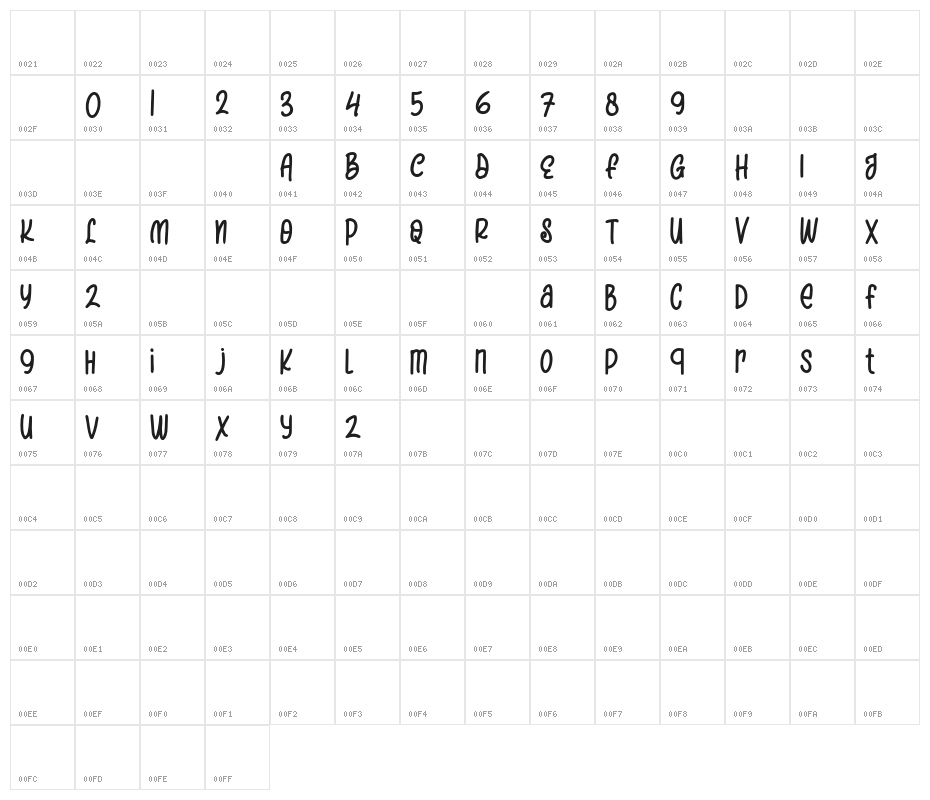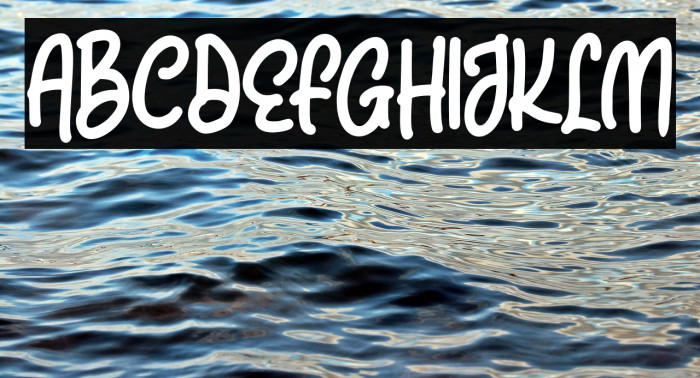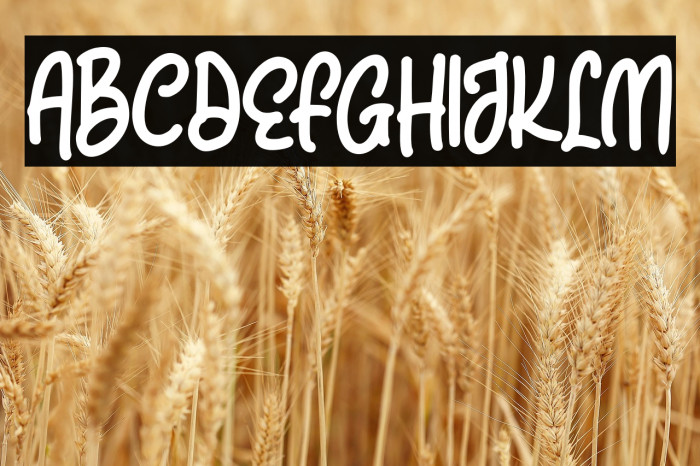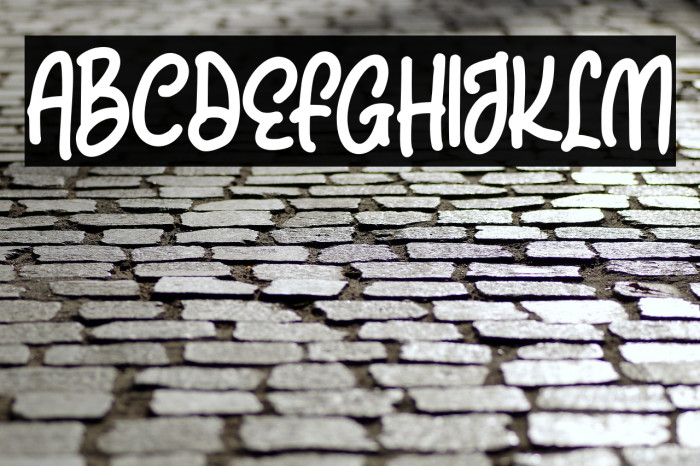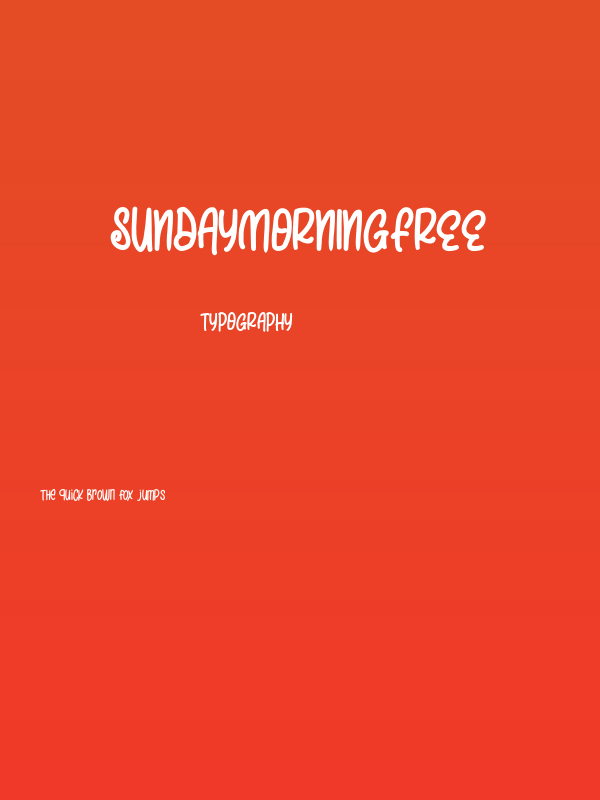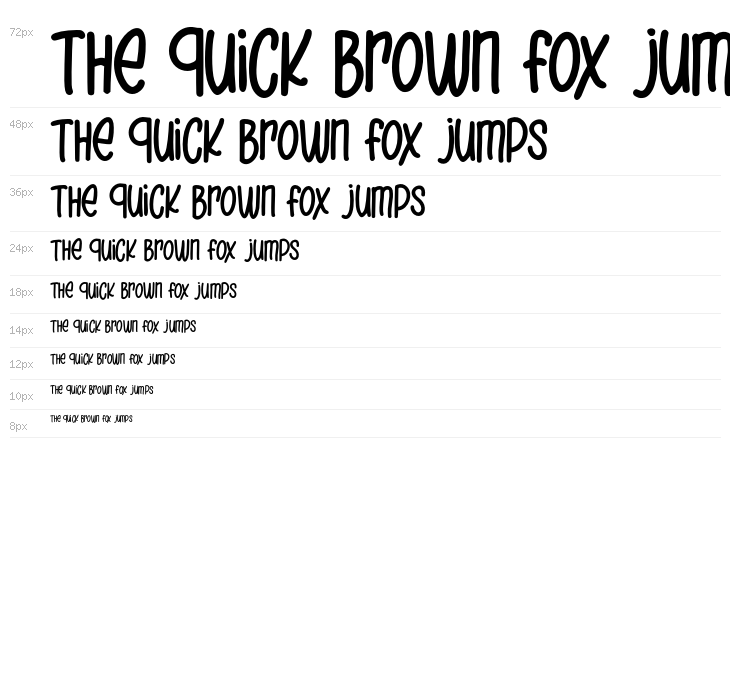
SundayMorningFREE Font
SundayMorningFREE Description
This playful and whimsical font features a handwritten style with smooth, rounded edges and a slightly irregular baseline, giving it a casual and friendly appearance. The characters are bold and have a consistent stroke width, which enhances readability while maintaining a fun and informal vibe. The uppercase and lowercase letters are distinct yet harmoniously designed, with a slight slant that adds to the dynamic feel. Numbers and special characters are included, matching the overall style and ensuring versatility for various uses.
| Use Case | Headlines, Logos, Social media graphics |
| Proposed Projects | Ideal for children's books, greeting cards, playful branding, and social media graphics. |